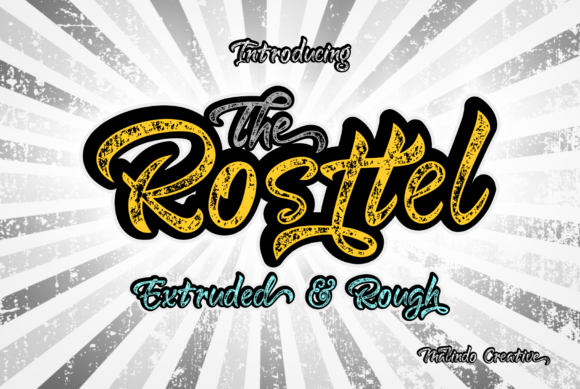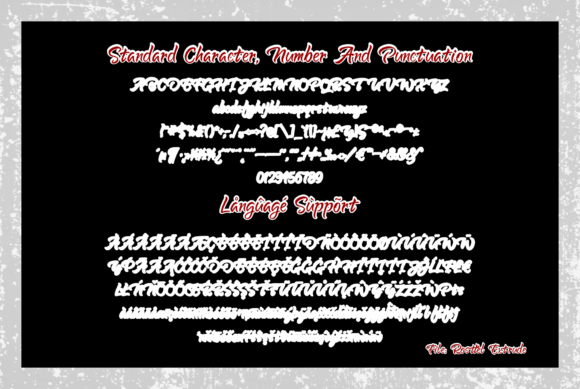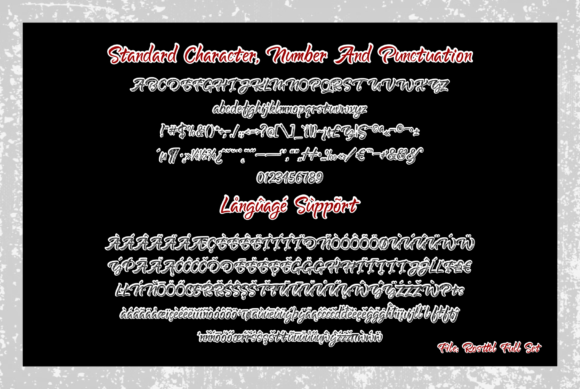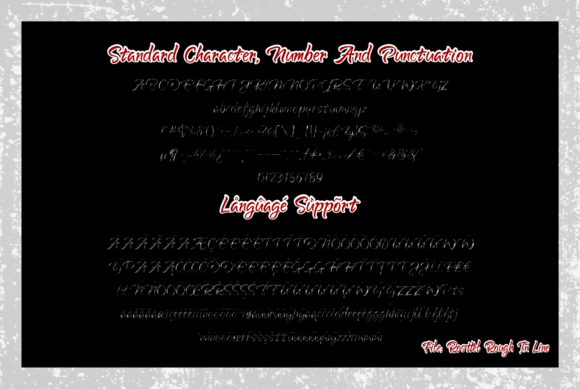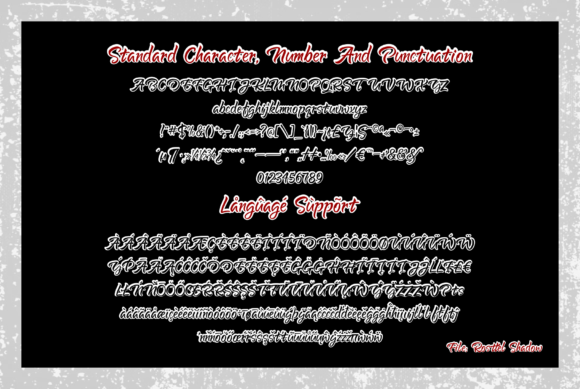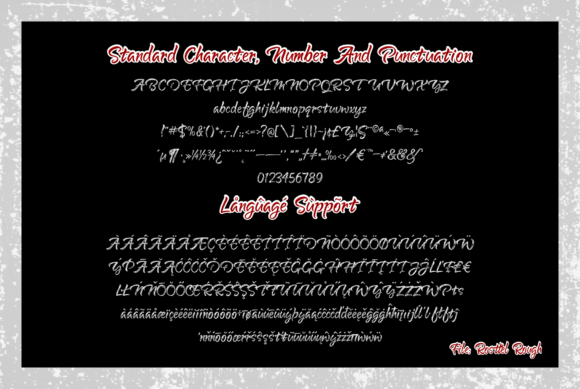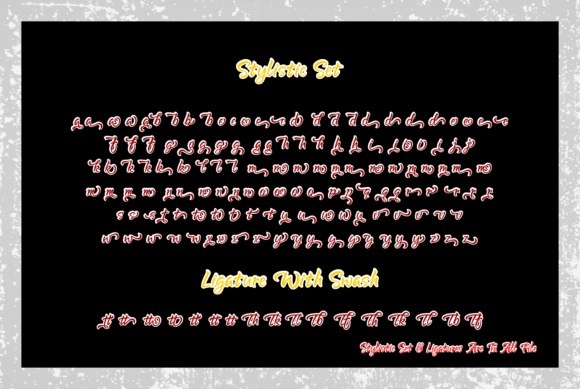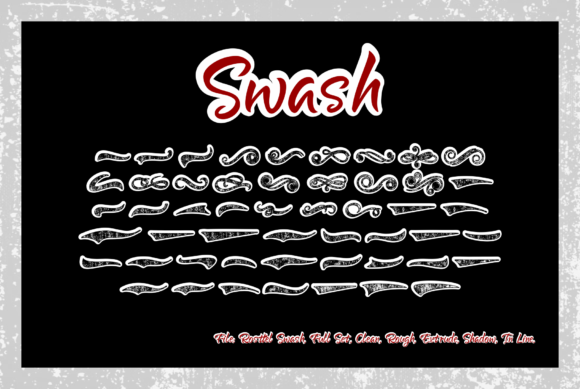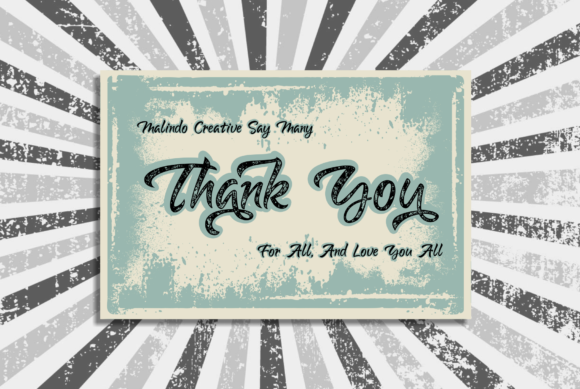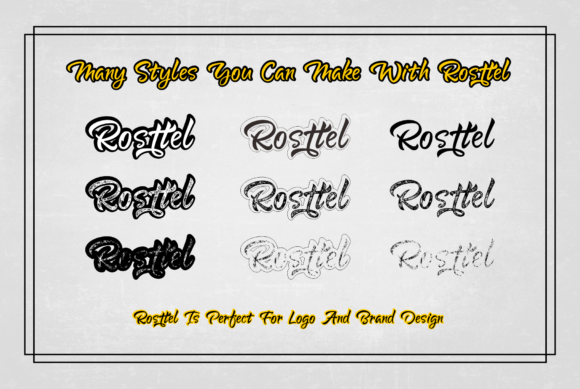
HomeScript FontsRosttel Font Script Fonts Rosttel Font FacebookXPinterestWhatsApp Rosttel Font Poster 2 Rosttel Font Poster 3 Rosttel Font Poster 4 Rosttel Font Poster 5 Rosttel Font Poster 6 Rosttel Font Poster 7 Rosttel Font Poster 8 Rosttel Font Poster 9 Rosttel Font Poster 10 Rosttel Font Poster 11 Rosttel Font Poster 12 Rosttel Font Poster 13 Rosttel Font Poster 14 Rosttel Font Poster 15 Rosttel Font Poster 16 Rosttel Font Poster 17 About Rosttel Font Rosttel is a beautiful retro and rugged font that evokes the feel of the iconic vintage typefaces of the past. DOWNLOAD NOW People also explored Stayhill Font Ragmoon Font Taneka Font Drive Winter Font Reborn Font Roseglow Font Bastardilla Font Eds Market Collection Font Holymonth Font 305 0 TagsRosttel Font Previous articleImam Sahirah FontNext articleAnastasya Font LEAVE A REPLY Cancel reply Comment: Please enter your comment! Name:* Please enter your name here Email:* You have entered an incorrect email address! Please enter your email address here Website: Save my name, email, and website in this browser for the next time I comment. Personal Use Free Pumpkin Type Halloween Font Personal Use Free Read more about this font Austins Personal Use Free Read more about this font Simple Personal Use Free Read more about this font Arnprior Personal Use Free Read more about this font BLOG Using Fonts in Digital Marketing: Tips to Strengthen Your Brand Identity In the realm of digital marketing, every visual element plays a crucial role in shaping a brand's identity, and fonts are no exception. The... To increase your work productivity, choose the most readable fonts. 5 Fonts That Will Dominate Design Trends in 2026 Best Fonts for YouTube Videos: Make Your Thumbnails Stand Out